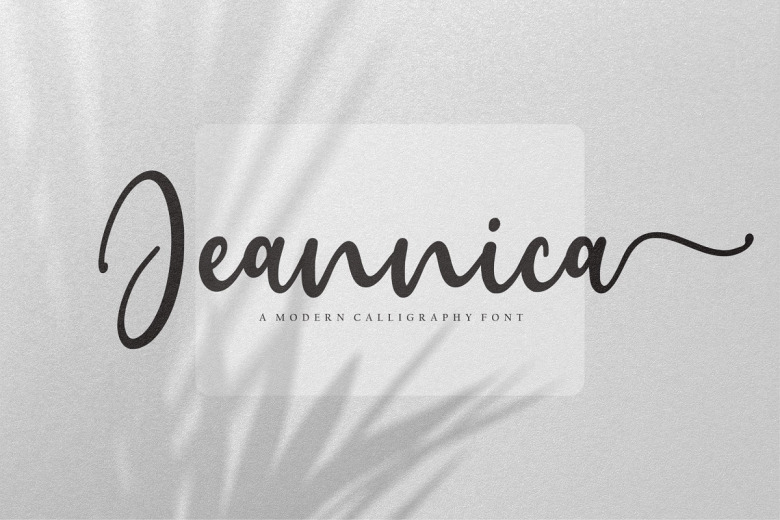
Jeannica Font
Jeannica is a new modern Calligraphy Script font with unique Flowing Style. Compatible for your design project needs like logo, branding, covers, posters and many more. PUA encoded so that you can access all the amazing glyphs and swashes with any programs!
Jeannica Calligraphy Script Font